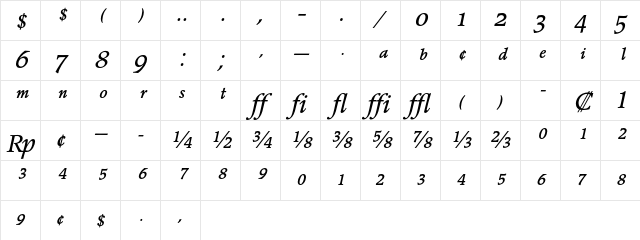
Poppl-Pontifex BE Italic Expert
Style: Italic Expert
Design Context for Poppl-Pontifex BE
Poppl-Pontifex BE is a composed and adaptable typeface that performs quietly and consistently across a wide range of design contexts. The slanted form adds forward momentum and visual energy.
Pro Tip: Use Poppl-Pontifex BE for emphasis, pull quotes, and subheadings where its slanted energy can add rhythm to the layout.